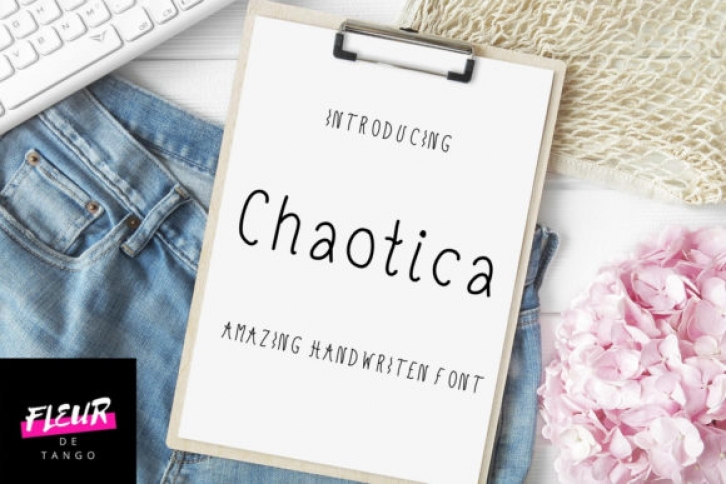
Chaotica is a sweet and friendly handwritten font. Its natural and unique style makes it incredibly fitting to a large pool of designs. The only limit is your imagination!